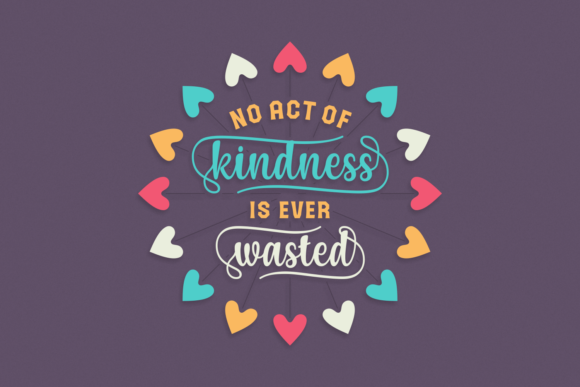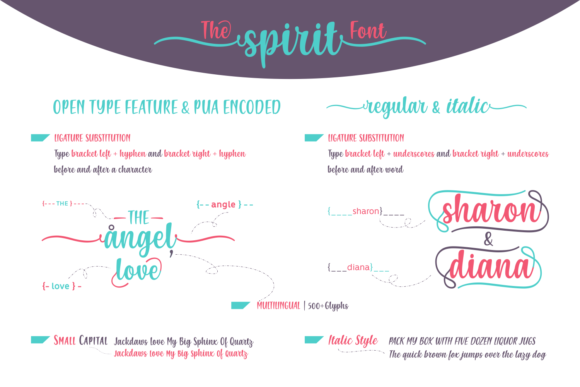
HomeScript FontsThe Spirit Font Script Fonts The Spirit Font FacebookXPinterestWhatsApp The Spirit Font Poster 2 The Spirit Font Poster 3 About The Spirit Font The Spirit is a fun, festive handwritten font. It comes packed with stunning swashes & swooshes. DOWNLOAD ON CREATIVE FABRICAThis font is sold and delivered by Creative Fabrica. Font Canyon may earn a commission if you buy through this link. People also explored Megolan Font Pargit Font Mochi Font Almondwild Font Child Font Eyedogan Font Bella Sweet Font Renedetta Font Quarters Font 375 0 TagsThe Spirit Font Previous articleSweaty Heart FontNext articlePN Sleigh Serif Holly Font LEAVE A REPLY Cancel reply Comment: Please enter your comment! Name:* Please enter your name here Email:* You have entered an incorrect email address! Please enter your email address here Website: Save my name, email, and website in this browser for the next time I comment. Personal Use Free Krase Personal Use Free Read more about this font DangeRNighT Font Personal Use Free Read more about this font Good Luck Personal Use Free Read more about this font Mellow Personal Use Free Read more about this font BLOG Modern Sans-Serif Fonts That Brands Love in 2025 In 2025, modern sans-serif fonts remain a top choice for brands looking to project clarity, professionalism, and... Exploring Font Trends Free Fonts Risk: Why Free Fonts Can Be Dangerous for Designers Best Fonts for YouTube Videos: Make Your Thumbnails Stand Out